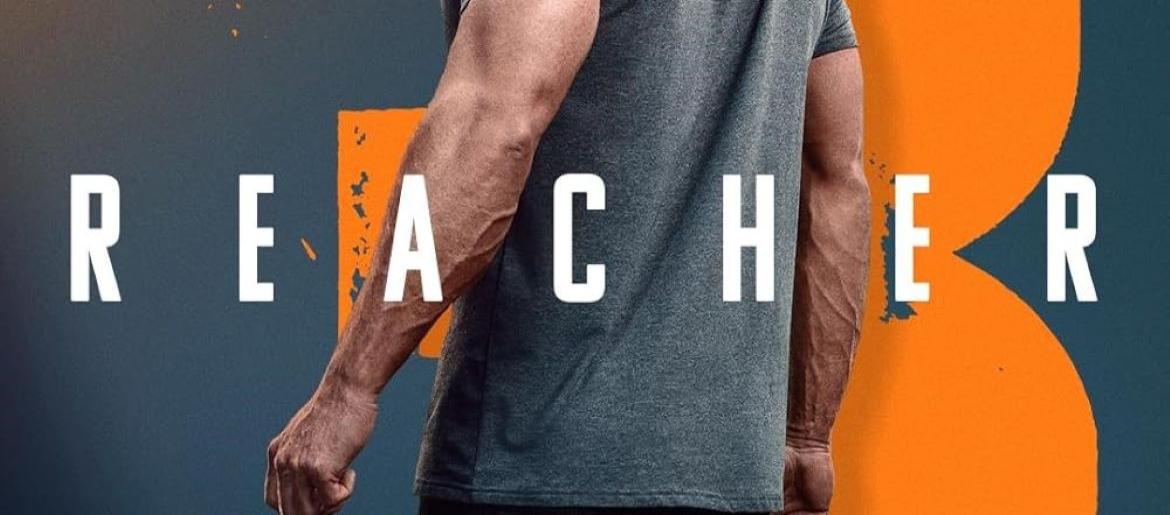
Reacher Font
The Reacher font brings the show’s tough, straight-to-the-point attitude to life with its bold, no-frills lettering. Its sturdy, confident look mirrors the intensity and grit of the series, making it perfect for action-packed designs, powerful headlines, or projects that need a commanding presence. This typeface delivers a sense of discipline and strength, ideal for anything from thriller artwork to rugged branding. Its clean, forceful style ensures your message hits with impact.
About Reacher
Reacher is a Prime Video adaptation of Lee Child’s bestselling Jack Reacher novels, debuting in 2022. The series follows the stoic former military policeman as he travels the U.S., exposing corruption, solving deadly mysteries, and relying on both intellect and brute strength. Its blend of suspense, action, and sharp storytelling has made it a standout modern thriller.